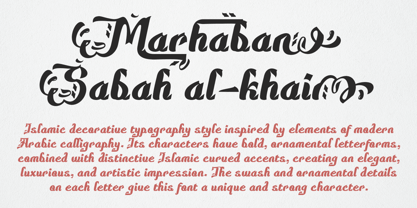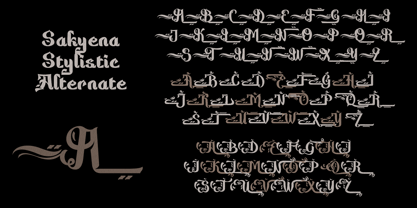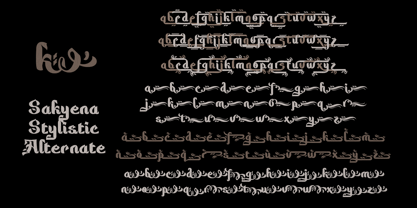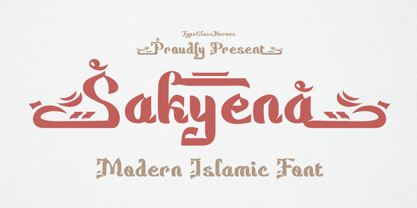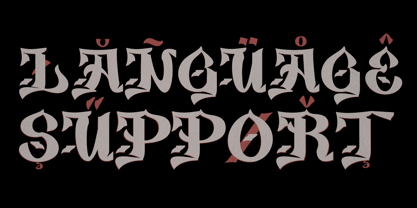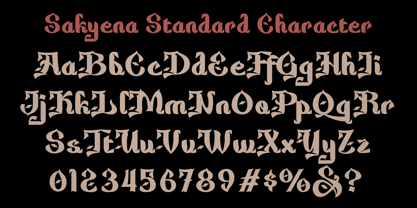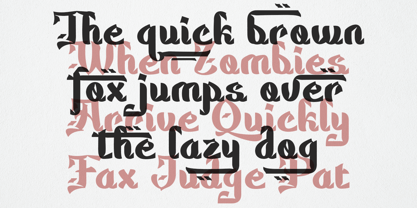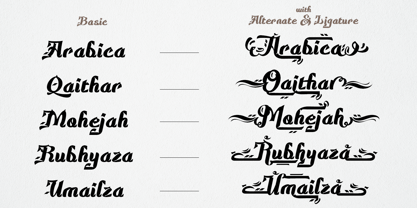
Sakyena
par TypeClassHeroes
La famille de polices Sakyena a été conçue par Suandana ipandemade et publiée par TypeClassHeroes. Sakyena contient 2 styles et options de package familial. En savoir plus sur cette famille
Introducing Sakyena, this font is an Islamic decorative typography style inspired by elements of modern Arabic calligraphy. Its characters have bold, ornamental letterforms, combined with distinctive Islamic curved accents, creating an elegant, luxurious, and artistic impression. The swash and ornamental details on each letter give this font a unique and strong character. This font is suitable for Islamic brand logos, perfume or skincare packaging designs, Ramadan & Eid posters, aesthetic Islamic content, hijab and fashion branding, religious music titles or album covers, premium Islamic invitations, cafe or product designs with a Middle Eastern theme. Due to its ornamental and classy appearance, this font is best used as a display font or main title to create a more prominent and exclusive look.
Concepteurs: Suandana ipandemade
Fonderie: TypeClassHeroes